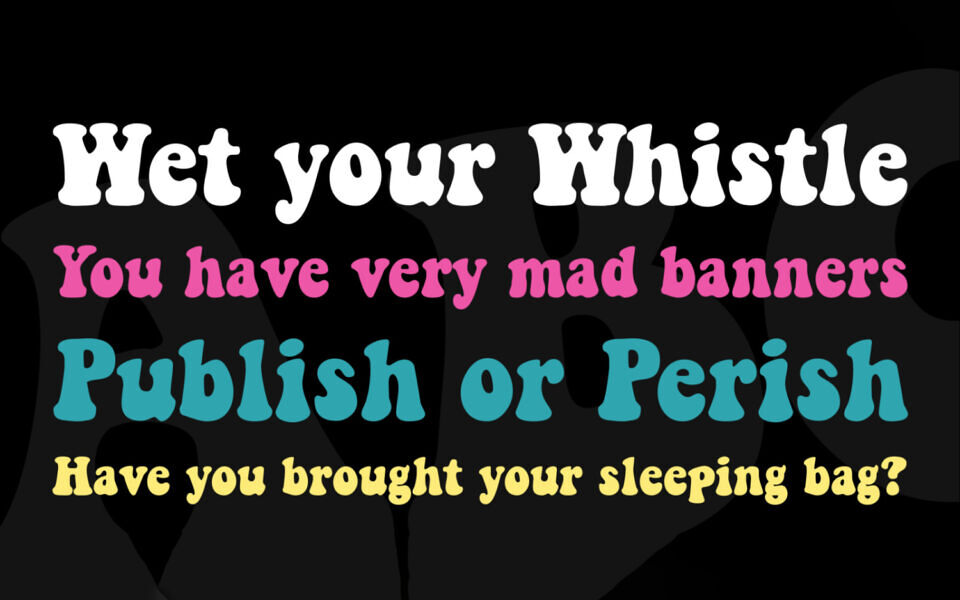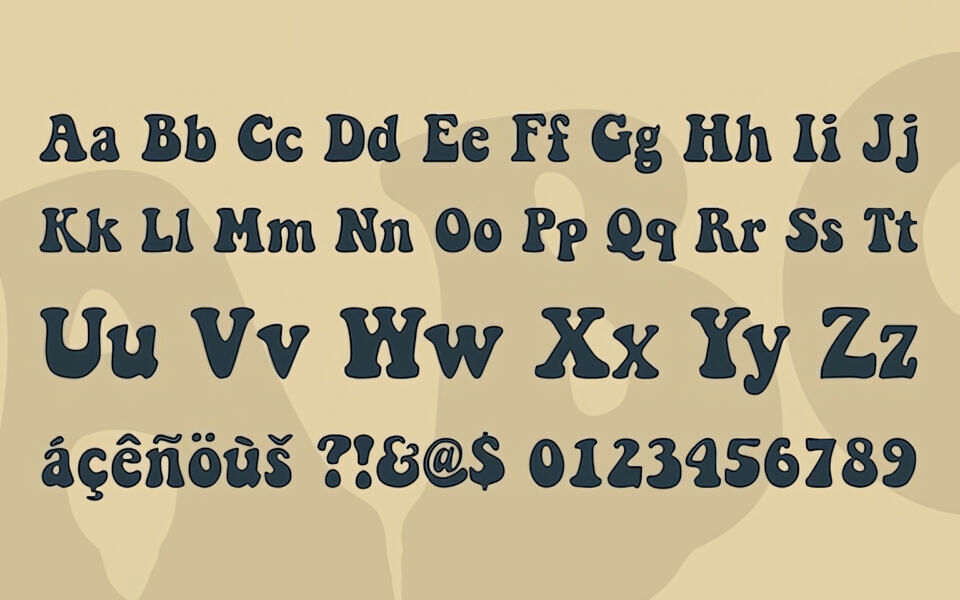
Keep on Truckin Font
Keep on Truckin Font is a bold, groovy typeface dripping with retro 1970s flair. Its thick, rounded letters curve and twist with a playful, psychedelic charm, evoking the free-spirited vibe of vintage poster art.
Available in a single, eye-catching style, this all-caps font brings a funky, laid-back energy to any design. Perfect for headlines, logos, or anything needing a nostalgic punch, its quirky letterforms ensure every word pops with personality and a touch of counterculture cool.